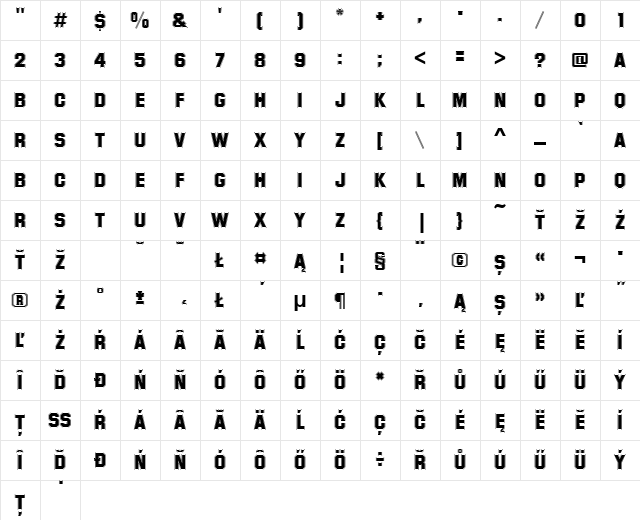
SuperstarDEE Regular Free Font
SuperstarDEE Regular
Design Context for SuperstarDEE
SuperstarDEE is a composed and adaptable typeface that performs quietly and consistently across a wide range of design contexts.